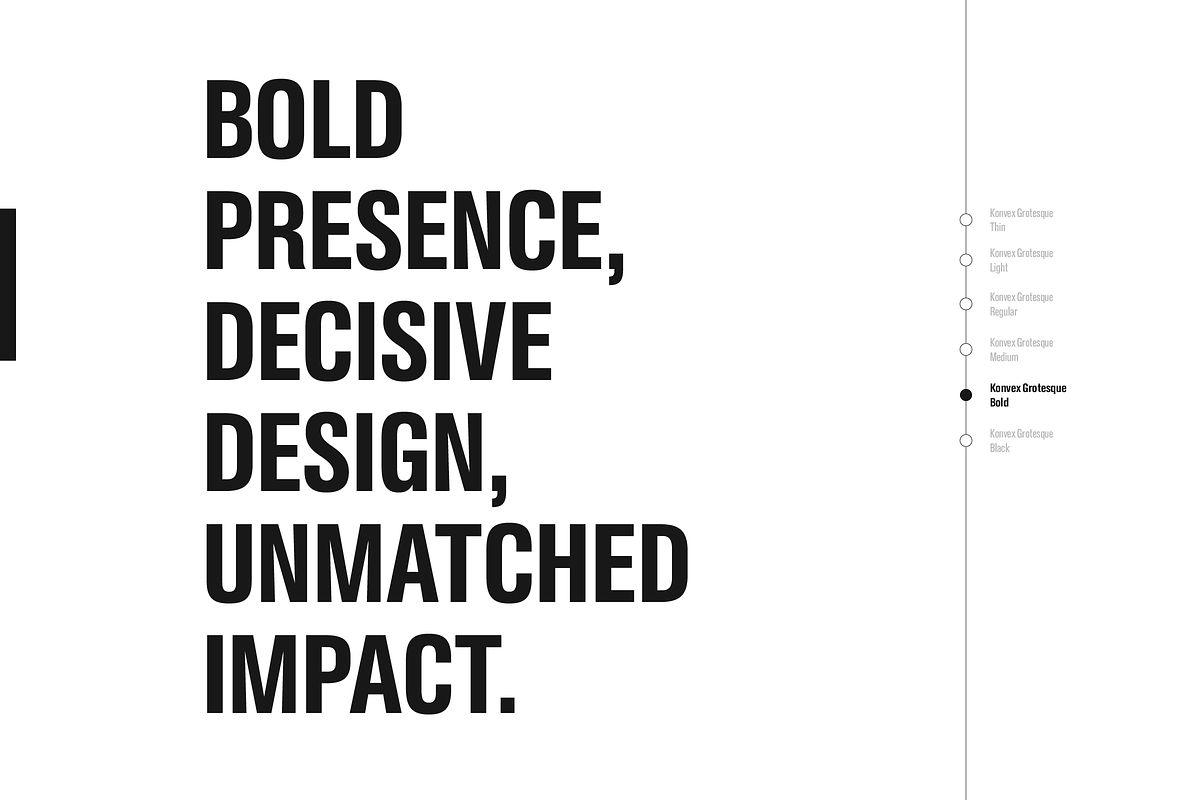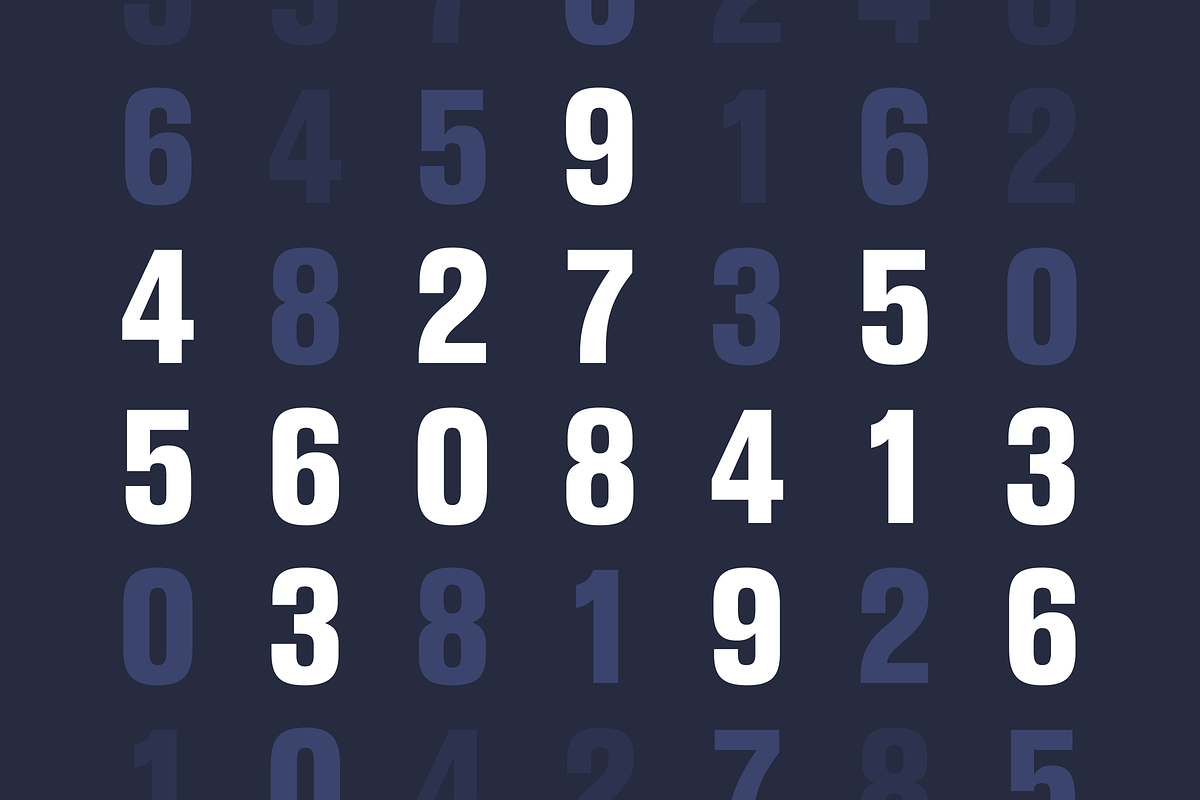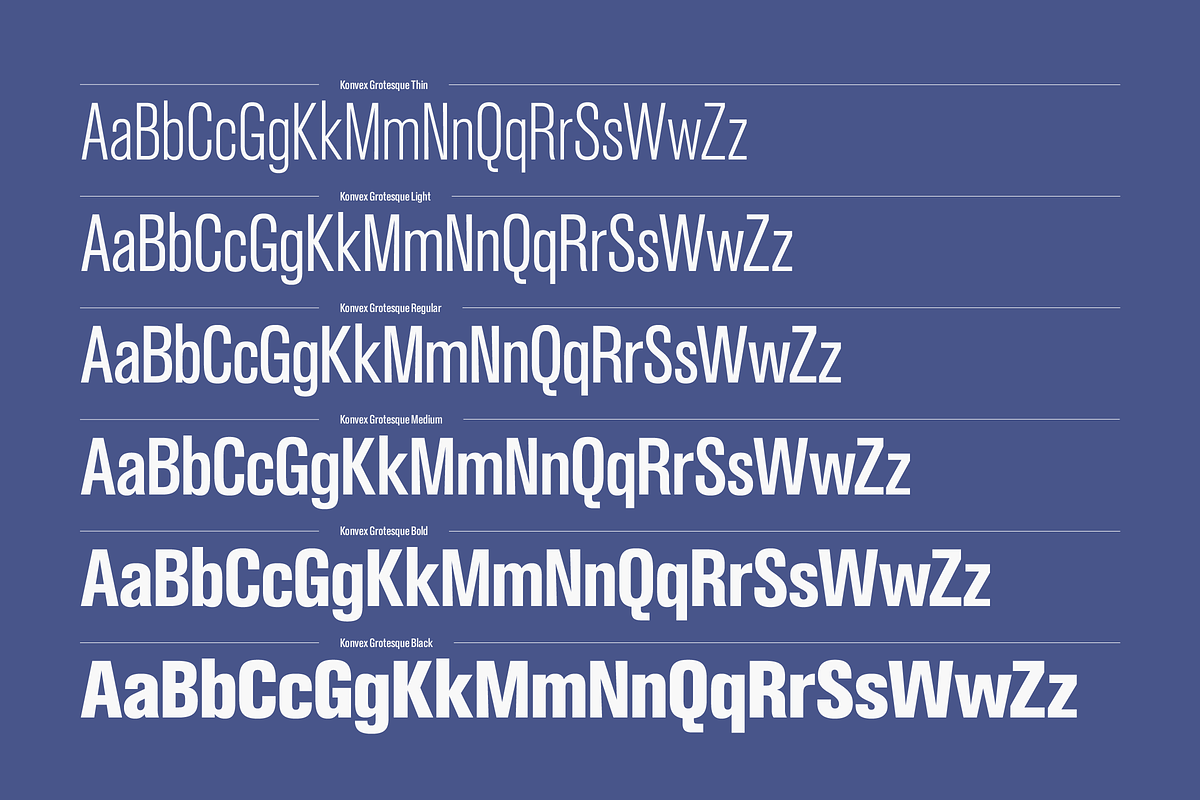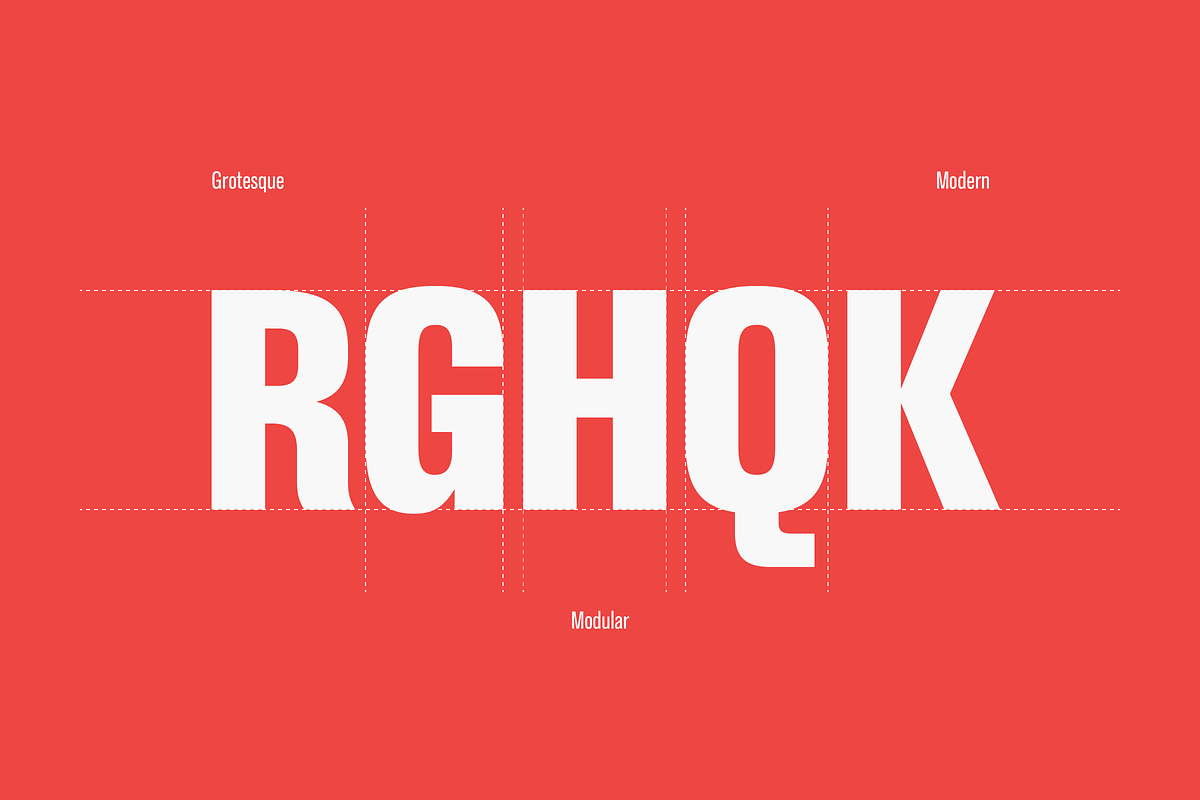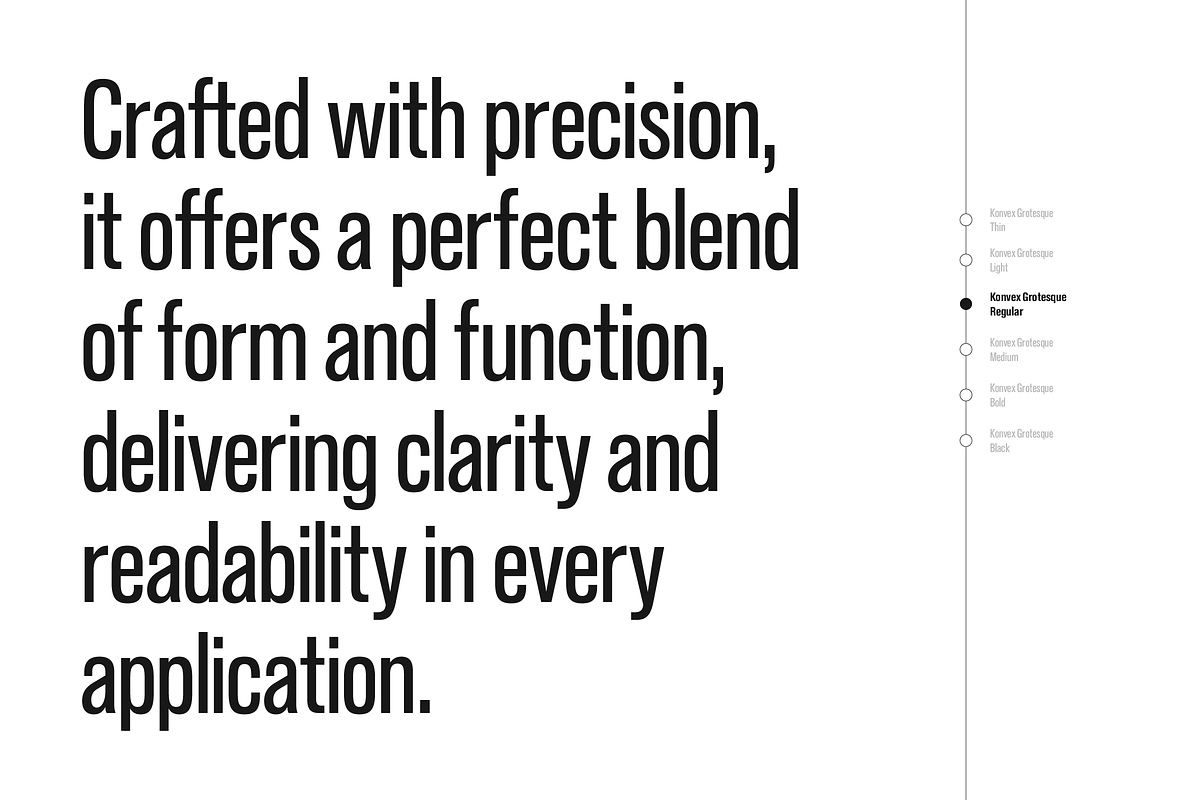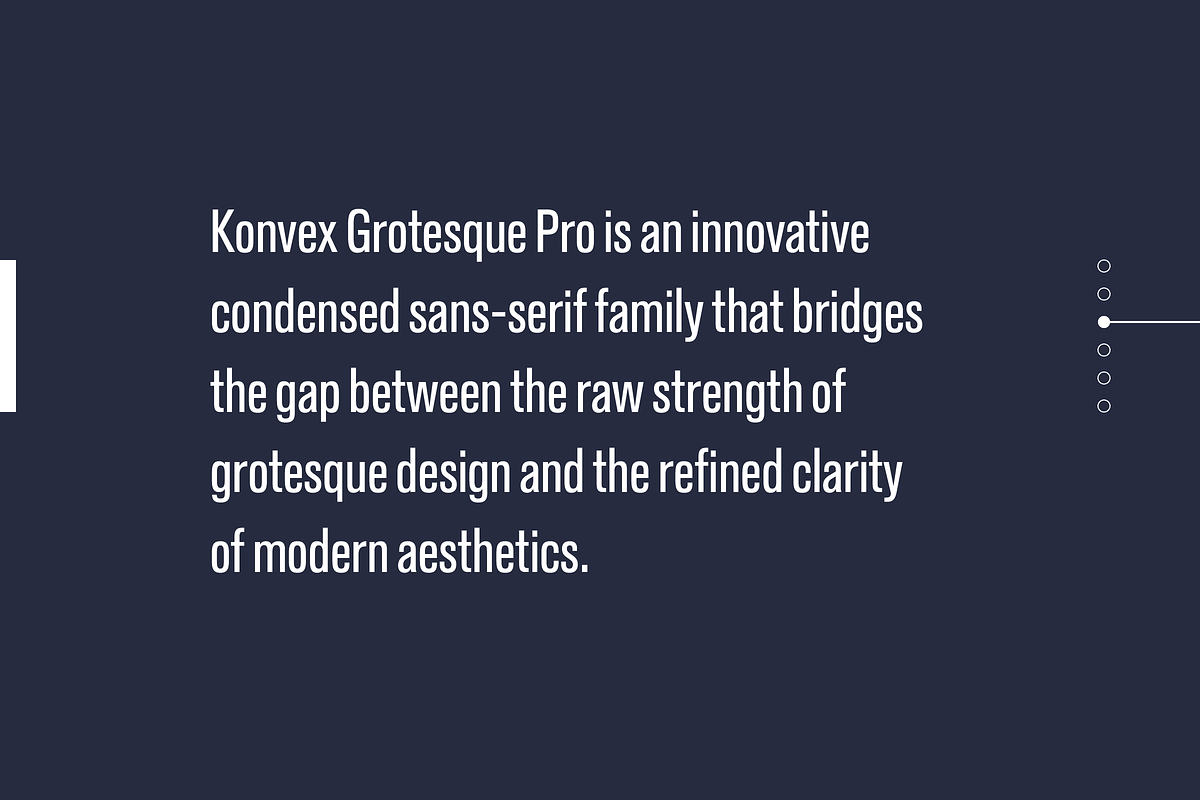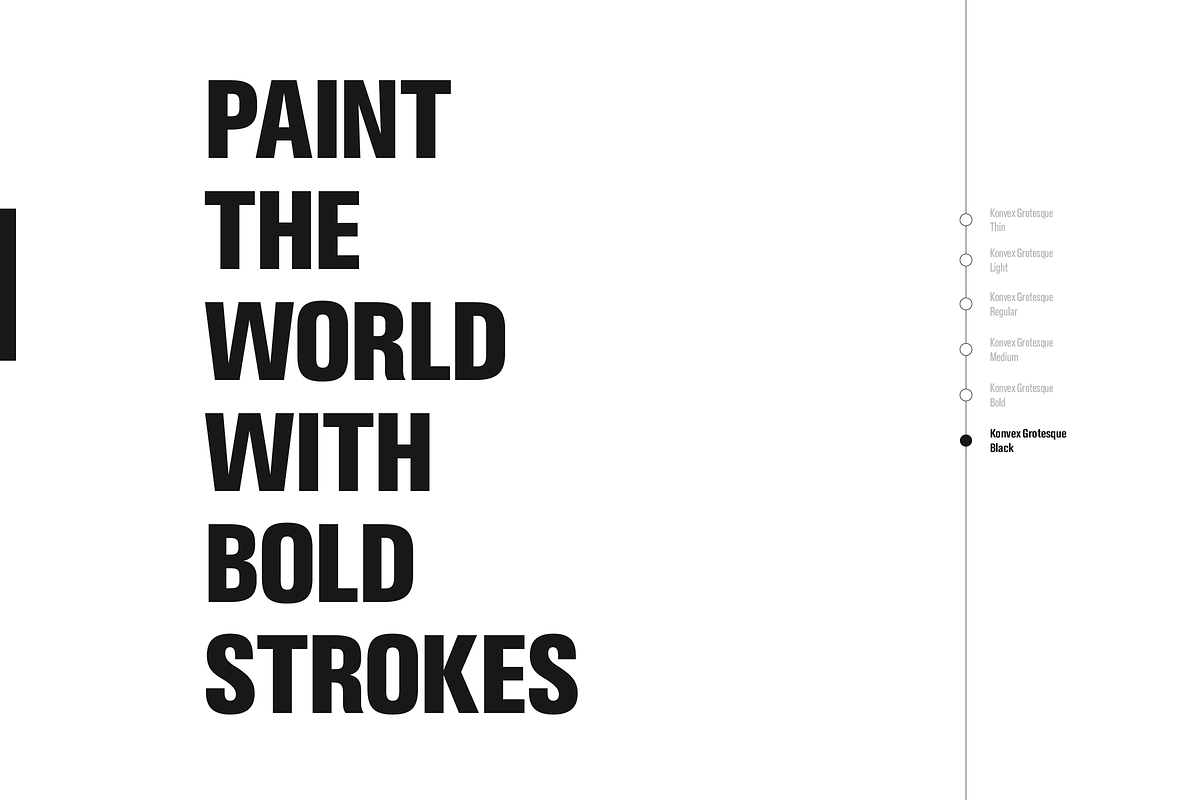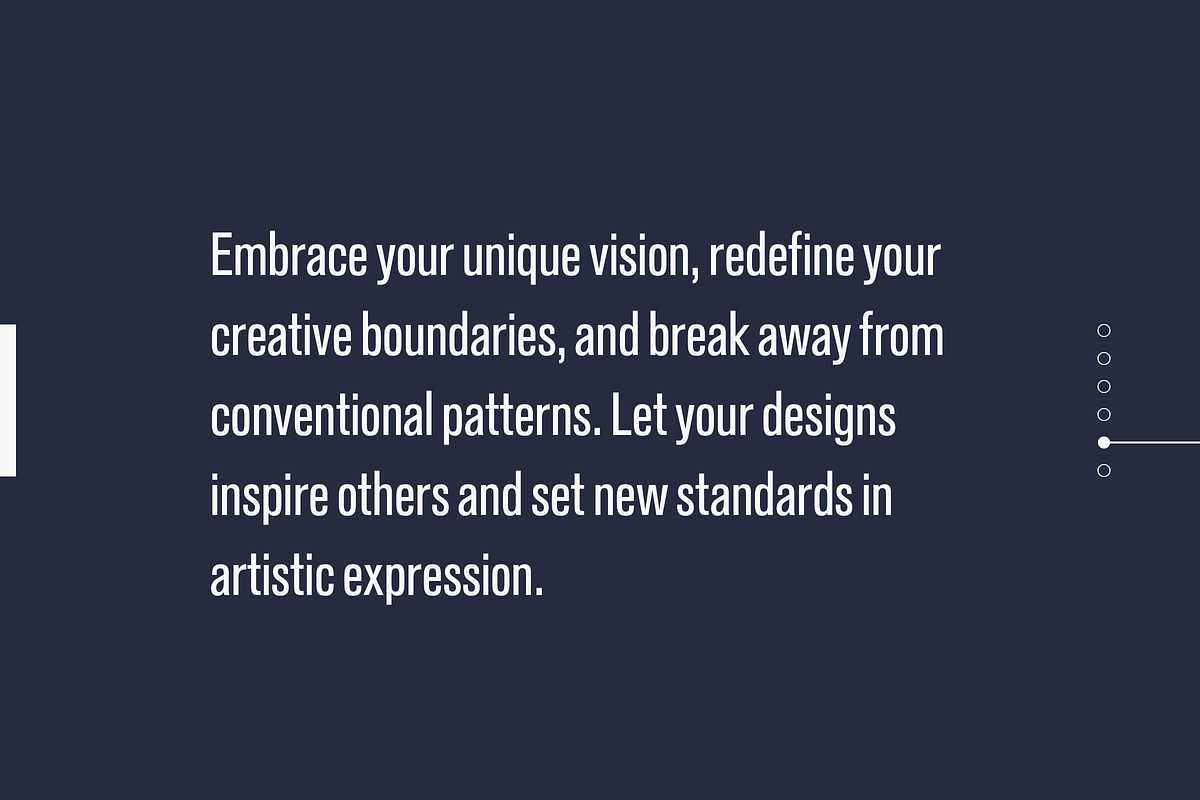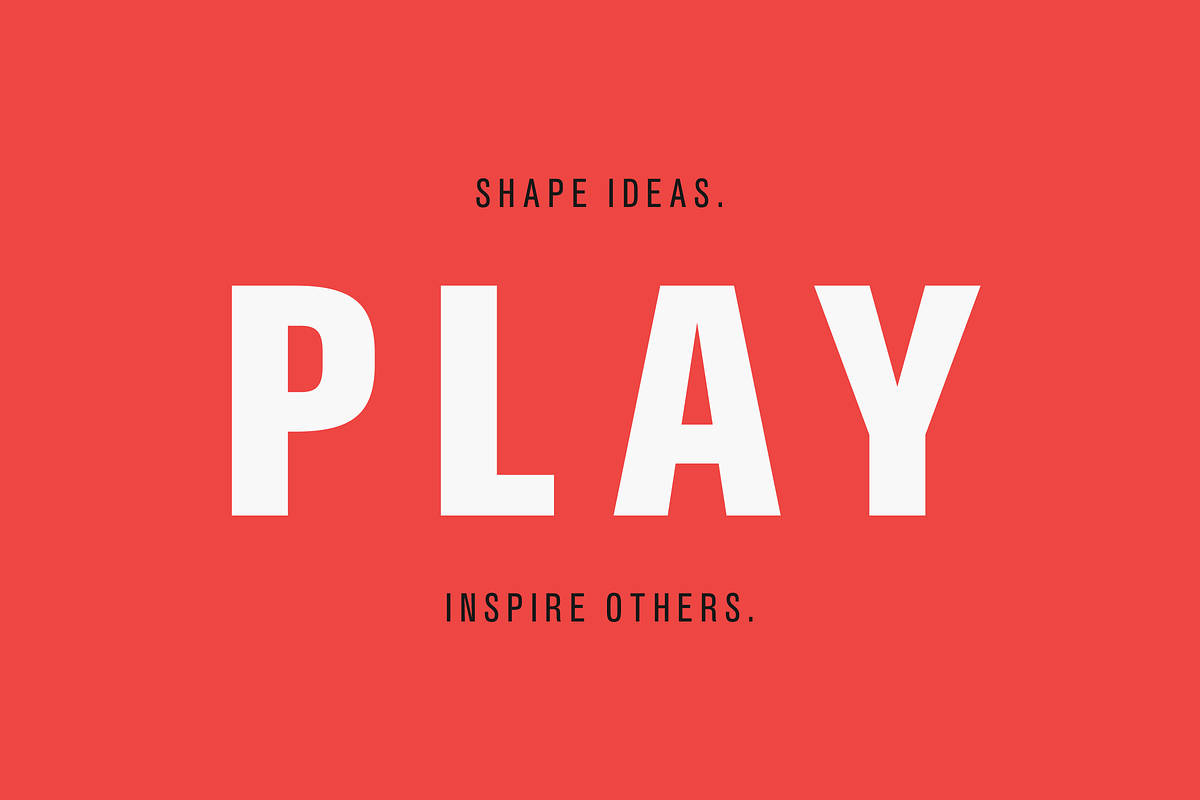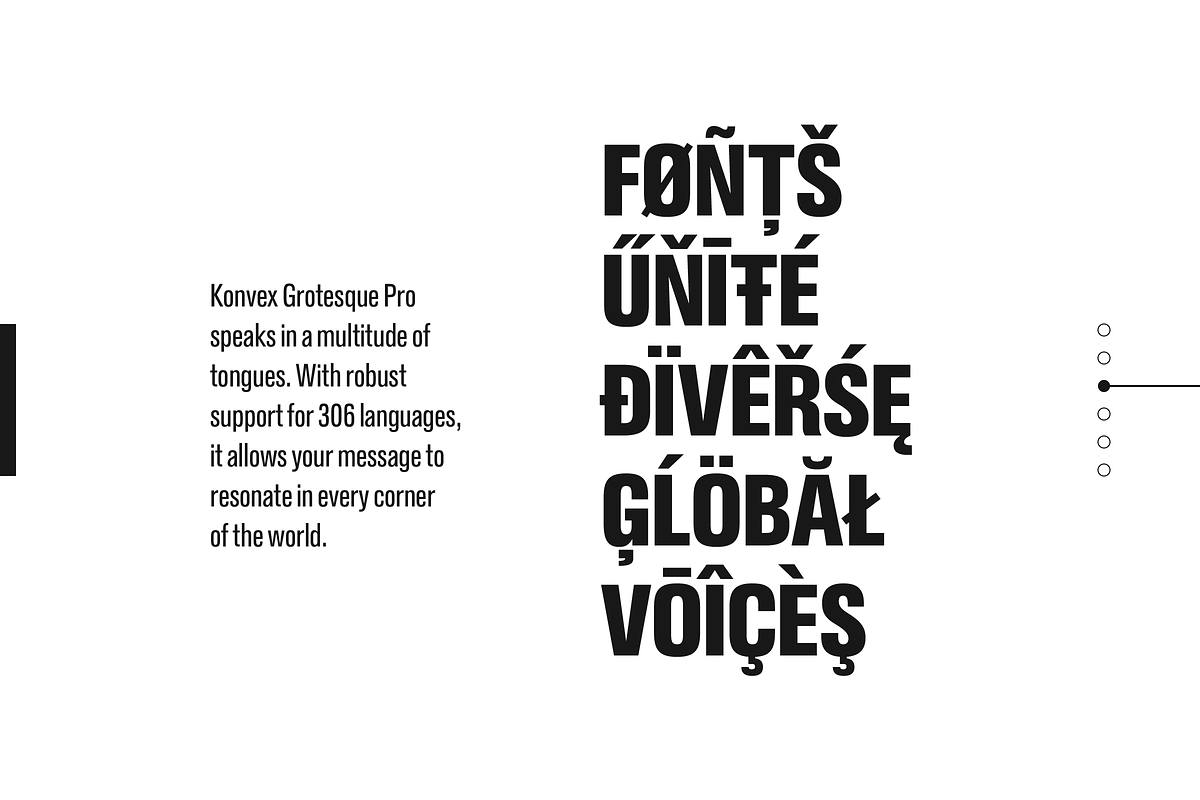
Konvex Grotesque Pro Typeface
Konvex Grotesque Pro is an innovative condensed sans-serif family that bridges the gap between the raw strength of grotesque design and the refined clarity of modern aesthetics. Crafted for versatility, this font family comprises six distinct weights, ranging from Thin to Black, each accompanied by a matching italic counterpart to provide flexibility for a broad range of applications.
Konvex Grotesque Pro features interesting stylistic alternates that offer an additional layer of creative expression, allowing designers to transform the text's appearance and inject unique personality into every design.
With its extended glyph set, Konvex Grotesque Pro offers huge linguistic versatility, supporting 306 Latin languages.
Konvex Grotesque Pro is a testament to modern design principles, offering balance, harmony, and a distinctive style. Whether used for captivating headlines, elegant print layouts, or sleek digital interfaces, Konvex Grotesque promises to elevate your projects with its unmistakable character and high-performance versatility.